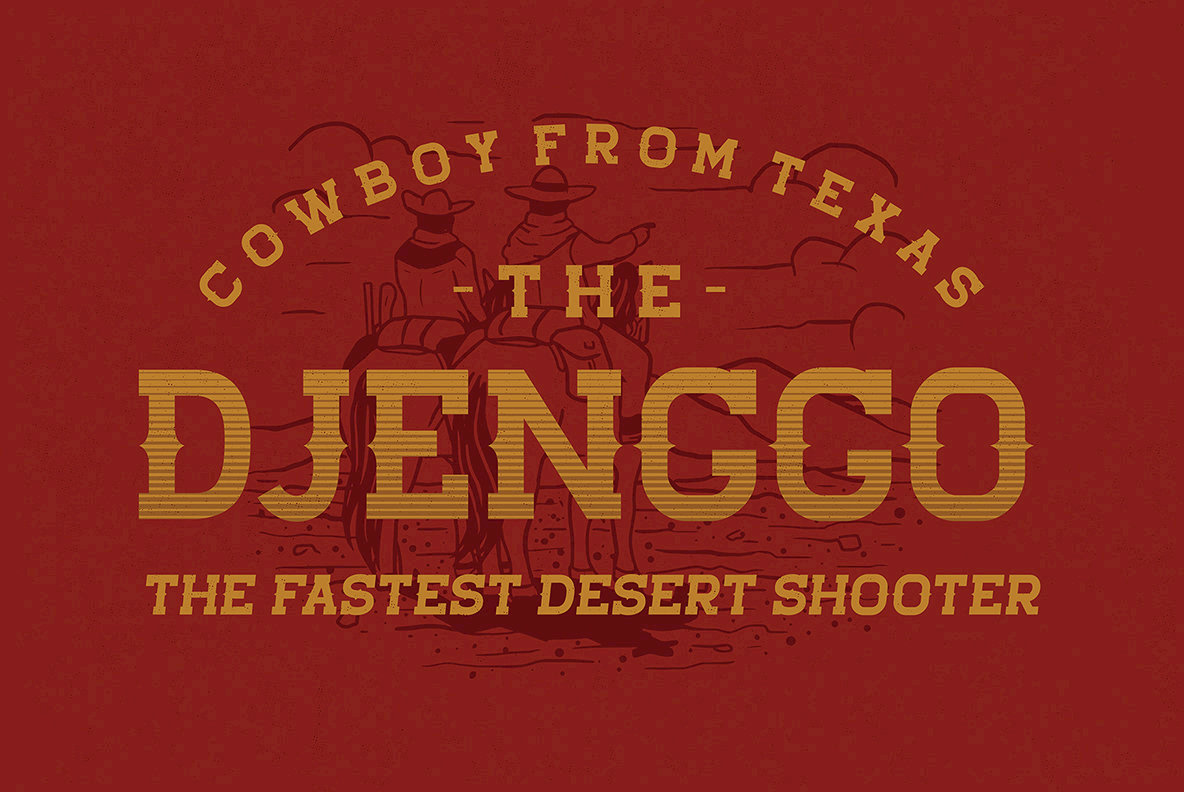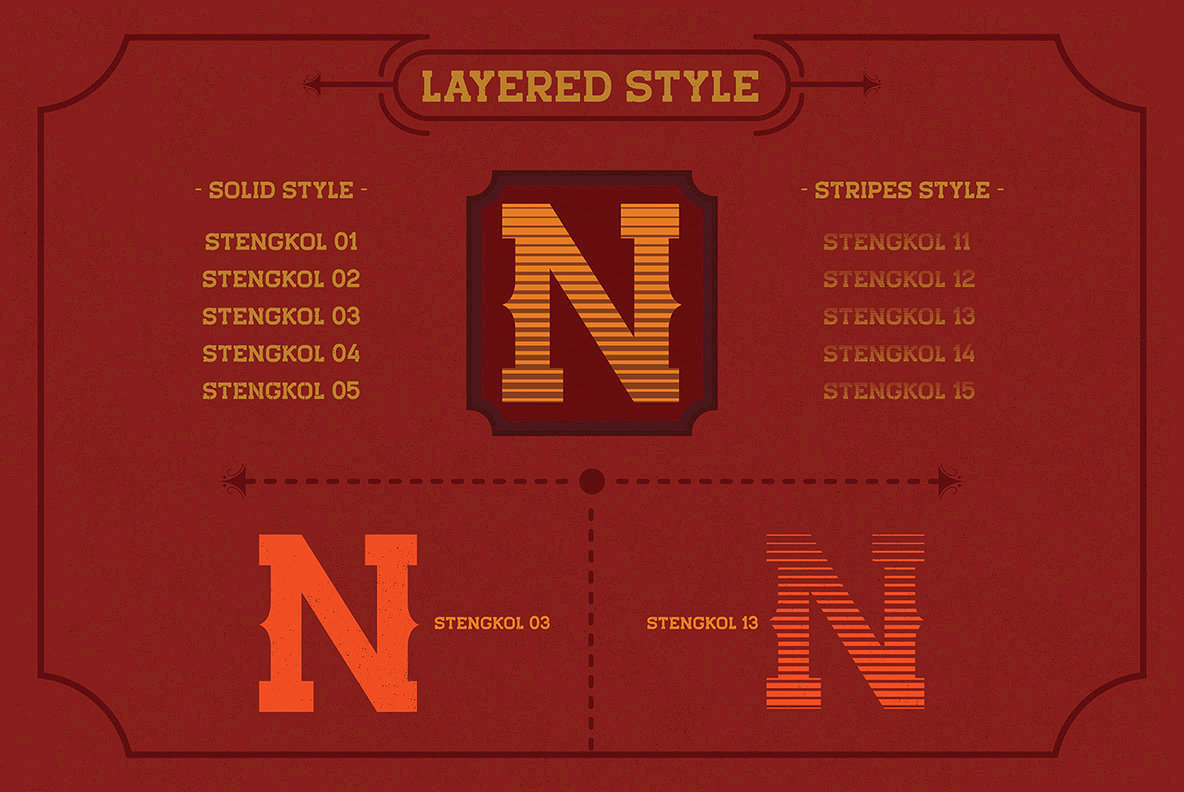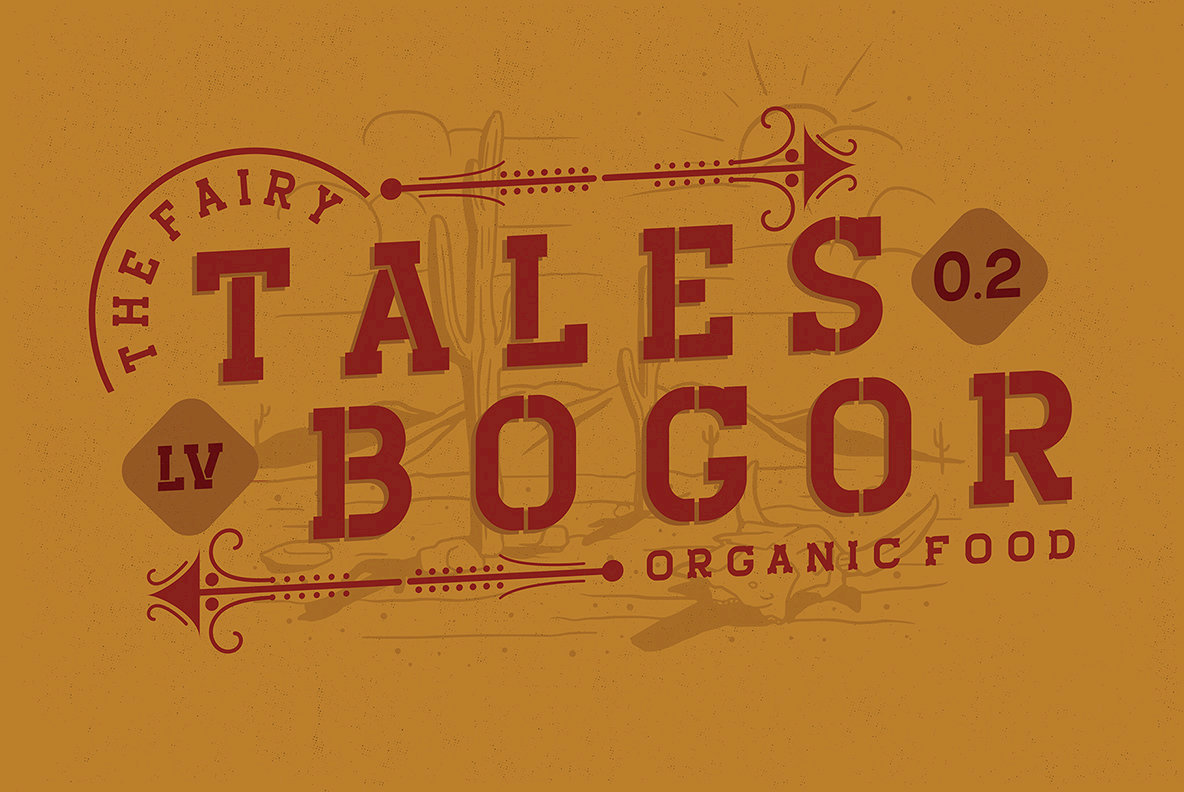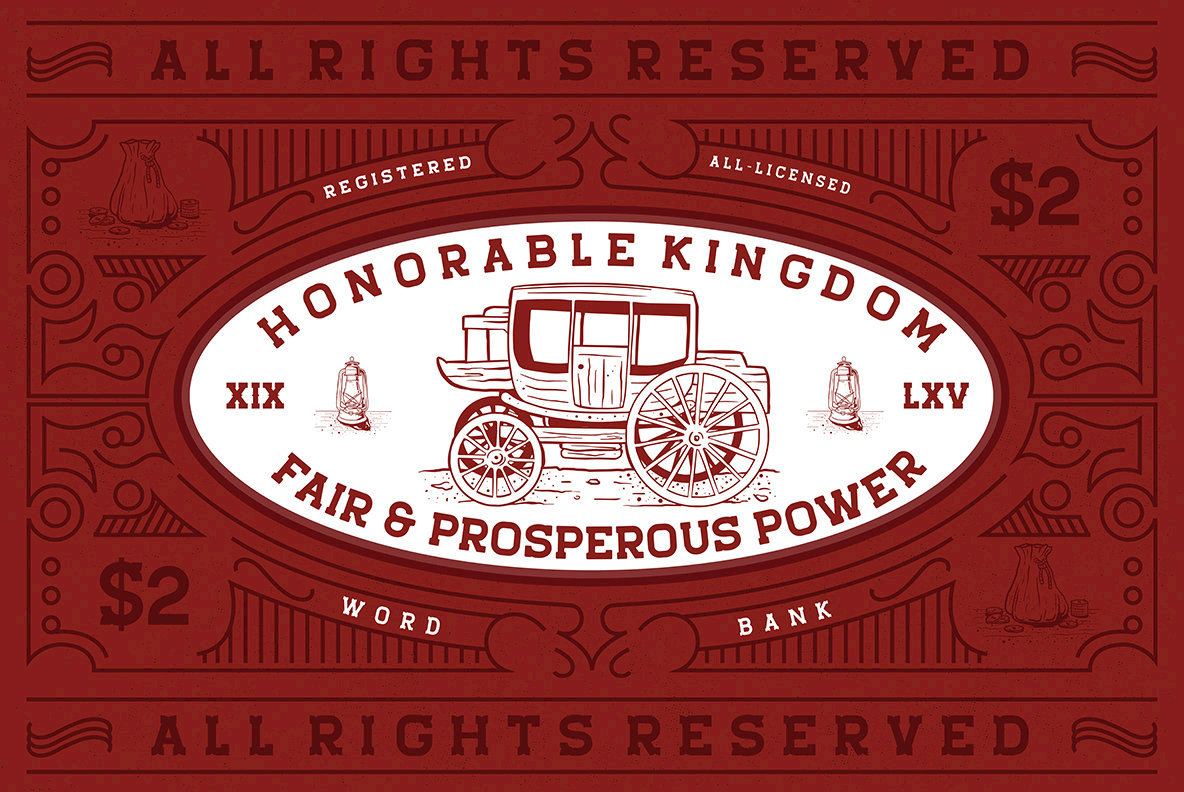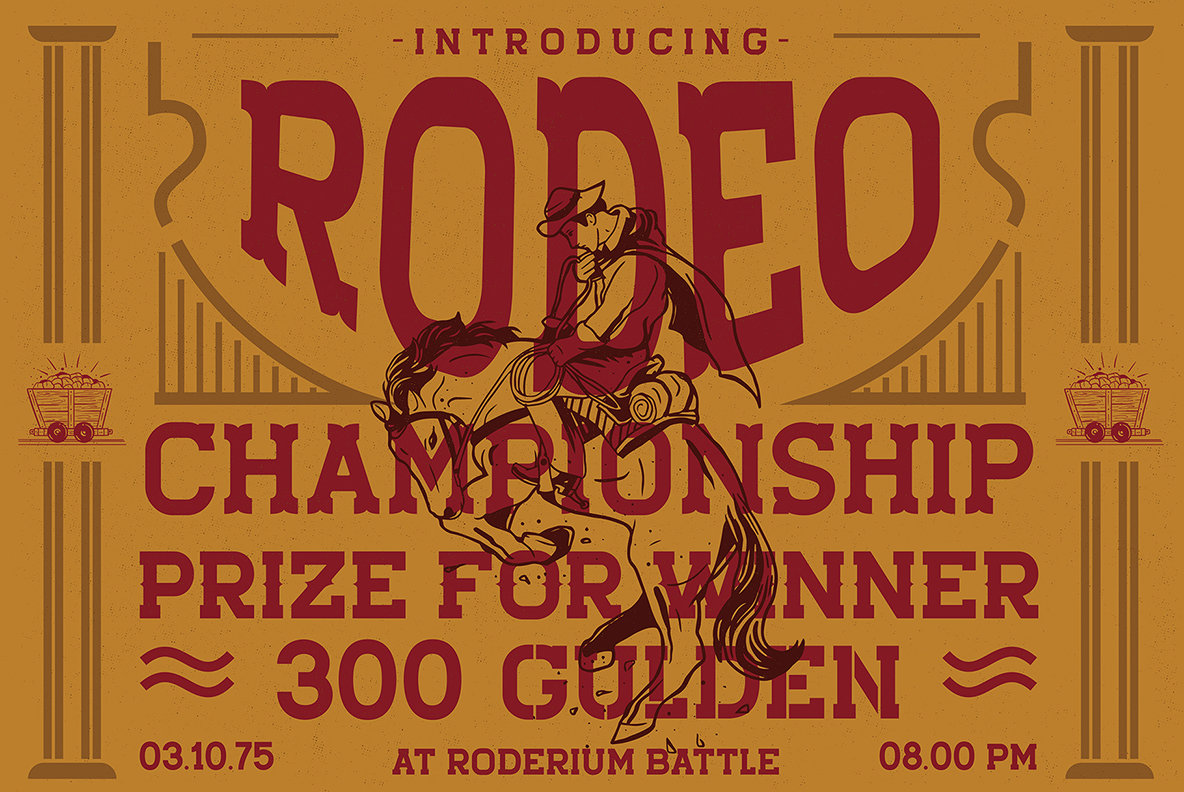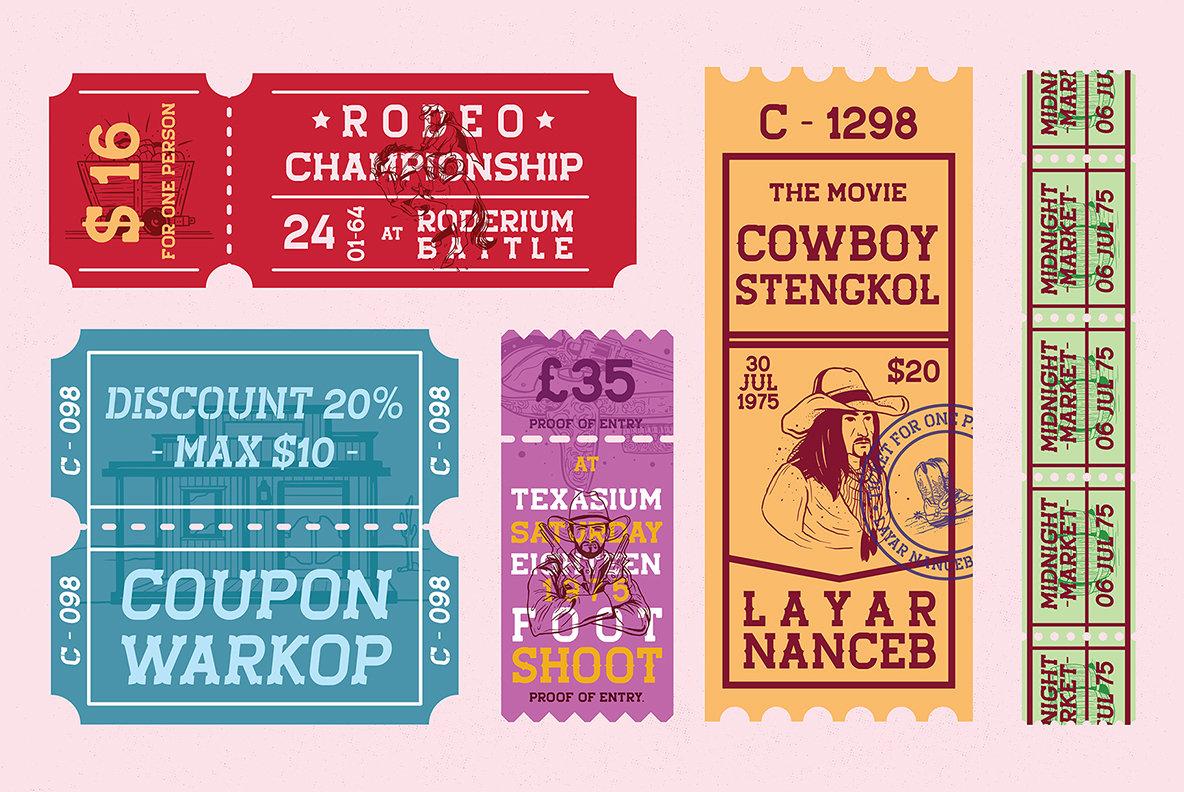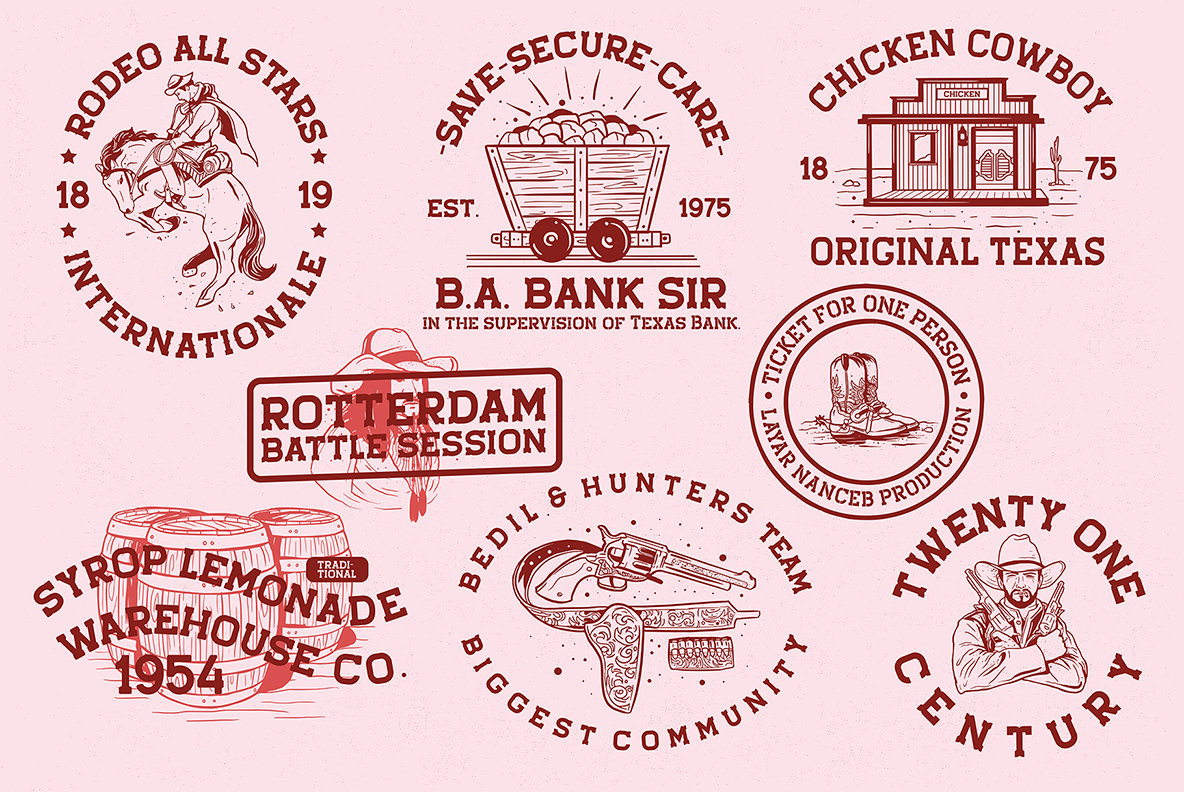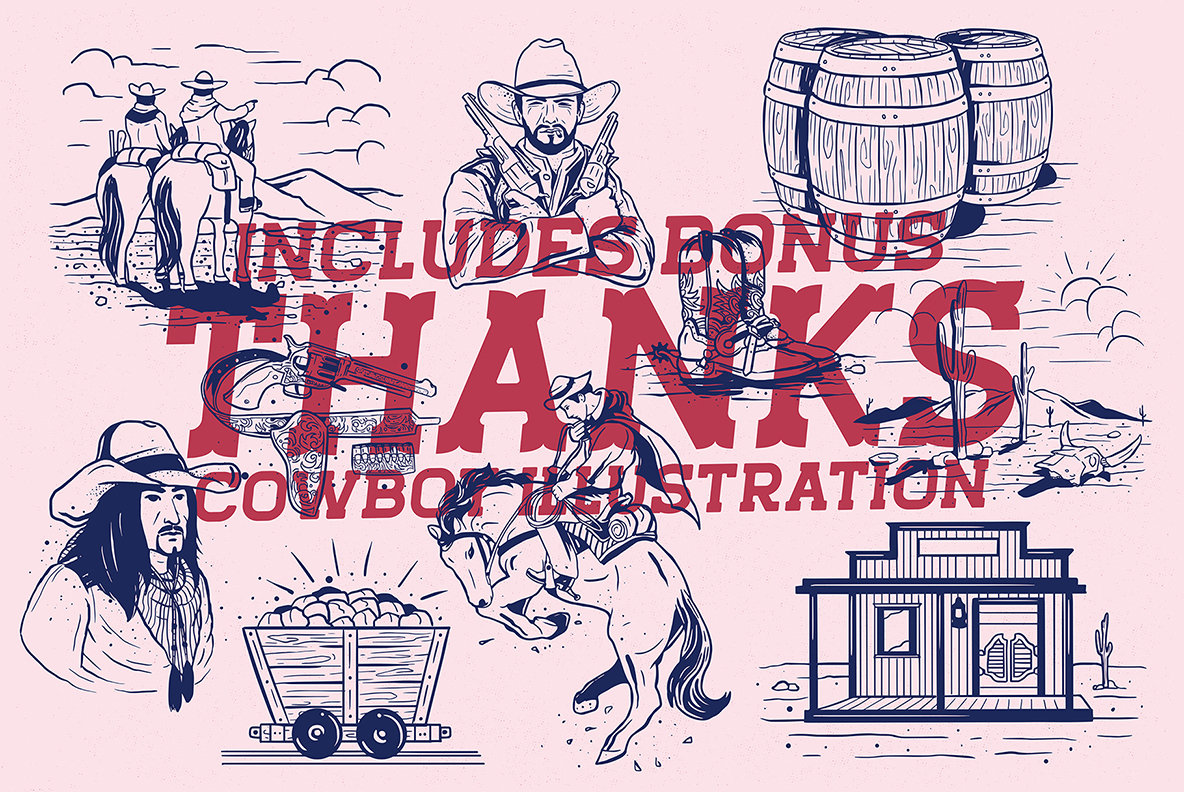
Stengkol Font
Stengkol Font Family of 20 fonts and 1 font cowboy illustration. Slab serif with various font styles with layered fonts. It's easy to use various fonts in one design and combined with cowboy illustrations. Stengkol Font Family is perfect for t-shirt designs, merchandise, posters, quotes, tickets, logotype and other designs.